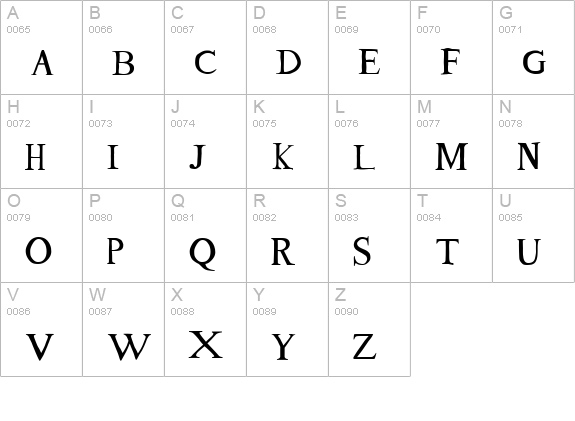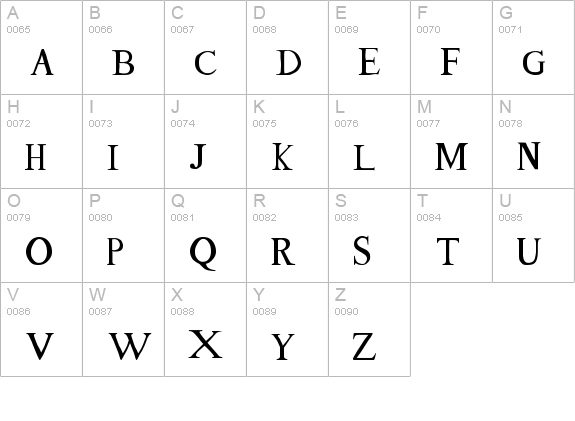
Tom's New Roman Font Details
Introducing Tom's New Roman, a timeless font that effortlessly combines elegance and readability. With its sleek and modern design, Tom's New Roman is the perfect choice for any project, whether it's a professional presentation, a captivating book cover, or a stunning website. But what sets Tom's New Roman apart from the rest? It's not just its impeccable style; it's also the fact that it's absolutely free! Yes, you read that right. This exceptional font is freely available to download at FontsMarket.com, ensuring that anyone can add a touch of sophistication to their creations without breaking the bank. Tom's New Roman is designed with meticulous attention to detail, ensuring every letter flows seamlessly into the next. Its clean lines and balanced proportions make it incredibly easy to read, even in small sizes or on screens. Whether you're designing a corporate brochure or crafting a personal invitation, Tom's New Roman will always make a lasting impression. This font's versatility knows no bounds. It effortlessly adapts to various design styles, from classic to contemporary, making it a go-to choice for designers, artists, and creators across the globe. With a wide range of weights and styles, Tom's New Roman allows you to express your creativity and bring your vision to life with precision and finesse. And let's not forget about its wide language support. Tom's New Roman covers an extensive range of characters, ensuring that your message can be conveyed in any language, anywhere in the world. No matter the project or audience, this font has got you covered. So why wait? Experience the elegance and versatility of Tom's New Roman today. Download it freely at FontsMarket.com and elevate your designs to new heights. With this font in your toolbox, you'll effortlessly captivate your audience and leave a lasting impression. Tom's New Roman is the font that truly embodies the power of beauty and accessibility.